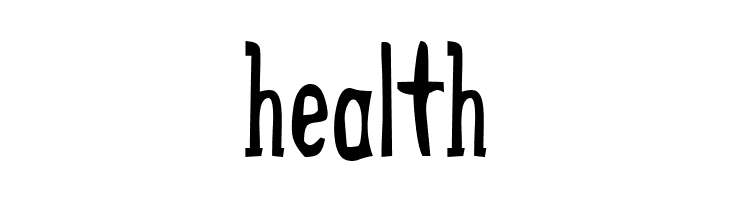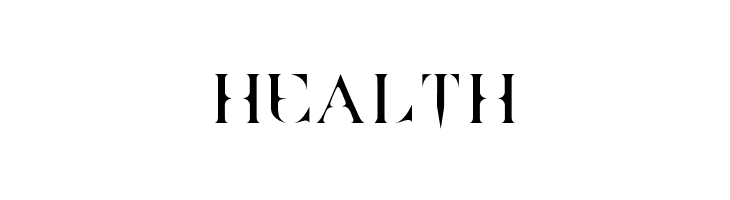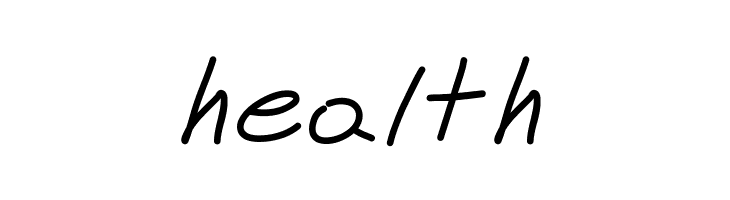
DpQuake Font
A bold, high-contrast serif font with sharp, angular serifs and a modern aesthetic.
Drek Normal Font
A playful, hand-drawn font with quirky, irregular letterforms.
Drek Light Font
A playful, hand-drawn font with irregular, wavy lines and a quirky, artistic style.
JuliFesta Bold Font
Drek NormalItalic Font
A bold, italic font with dynamic angles and a modern, energetic style.